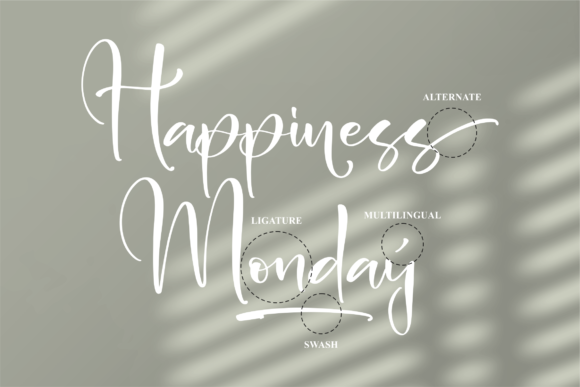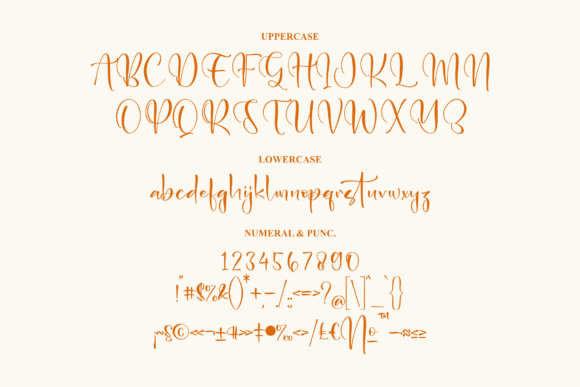
About Medanie Densita Font
Medanie Densita is a relaxed, trendy and delicate script font. Add it confidently to your projects, and you will love the results.